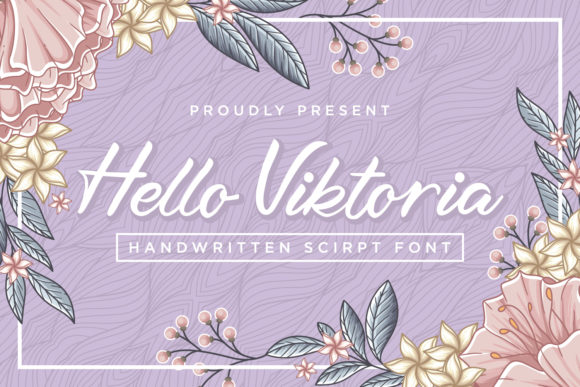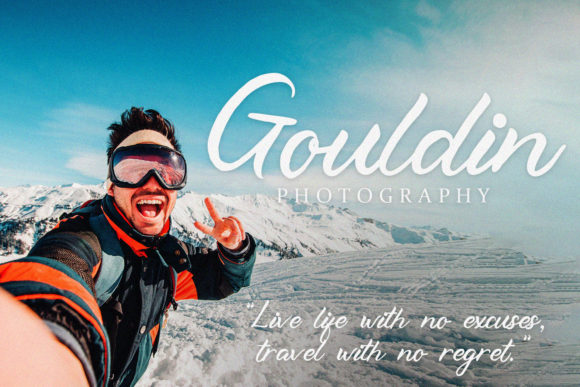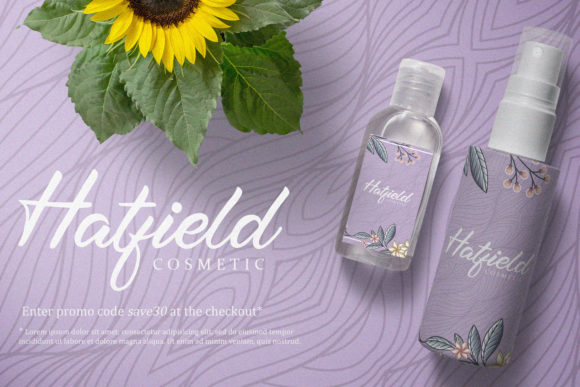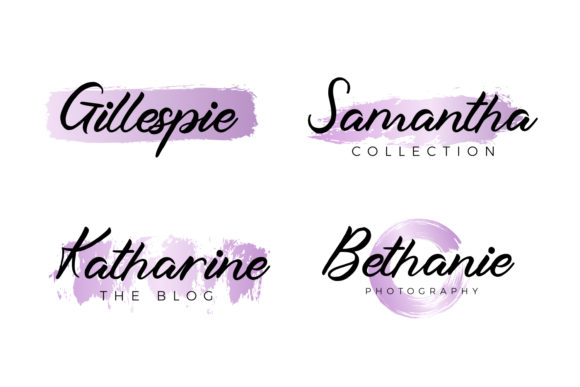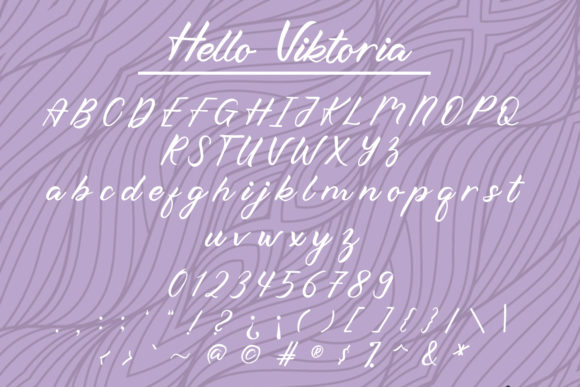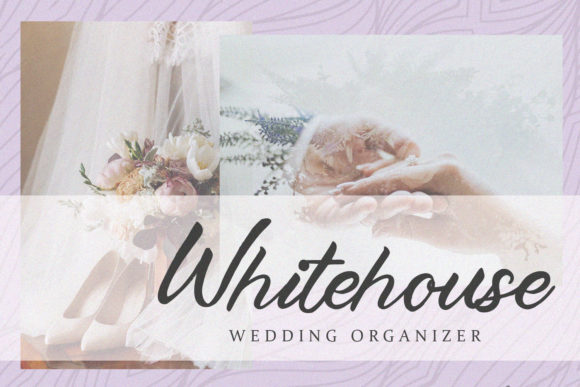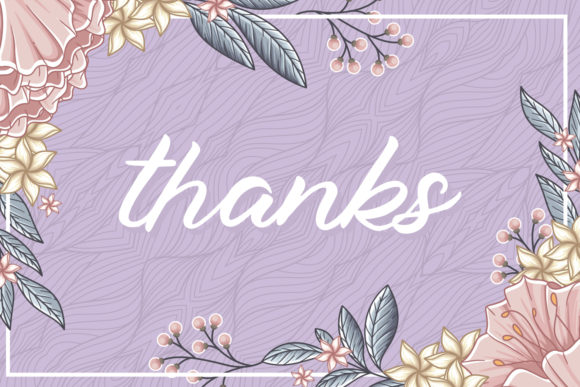
Script Fonts Hello Viktoria Font 0 146 FacebookTwitterPinterestWhatsApp 1 of 7 Hello Viktoria Font Poster 2... Hello Viktoria Font Poster 3... Hello Viktoria Font Poster 4... Hello Viktoria Font Poster 5... Hello Viktoria Font Poster 6... Hello Viktoria Font Poster 7... About Hello Viktoria Font Hello Viktoria is a refined paint brushed handwritten font. Dainty and joyful, this font will be ideal for writing wedding invitations, cards or any other design that may need a romantic, personalized touch! DOWNLOAD NOW